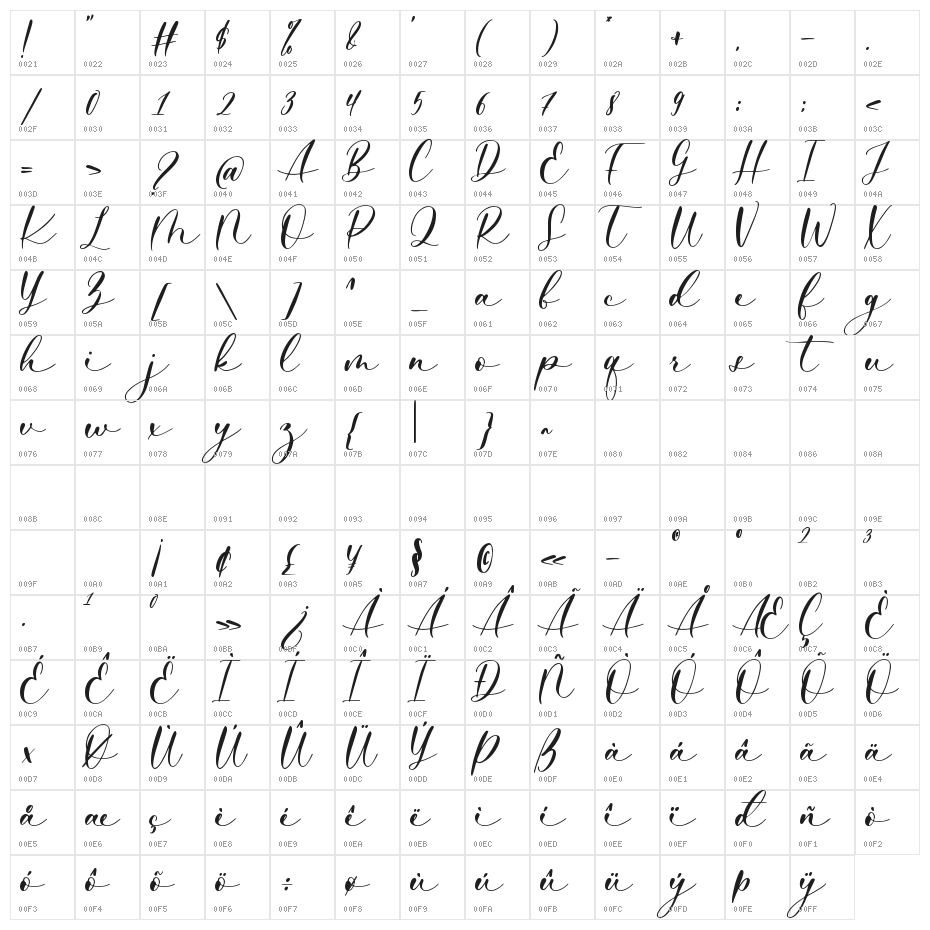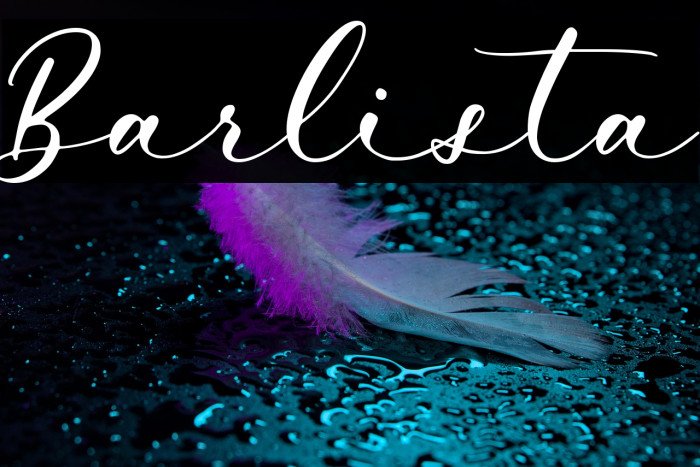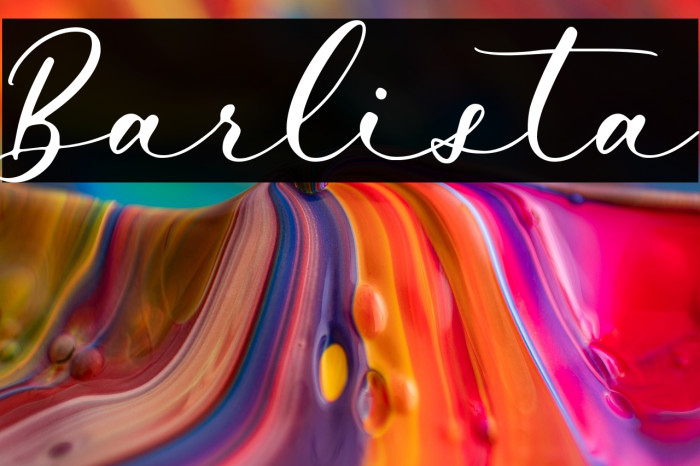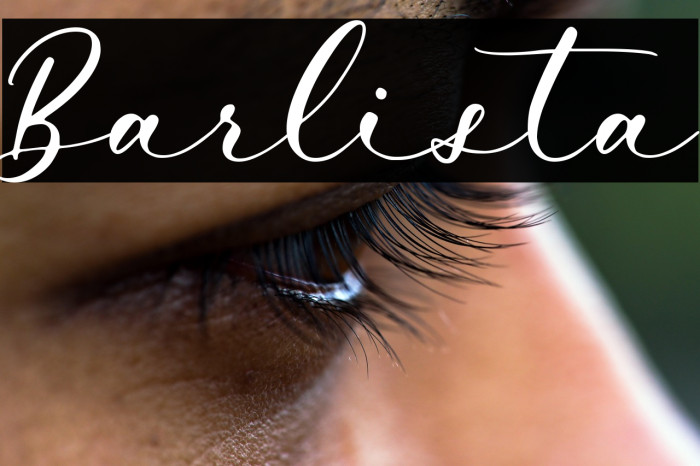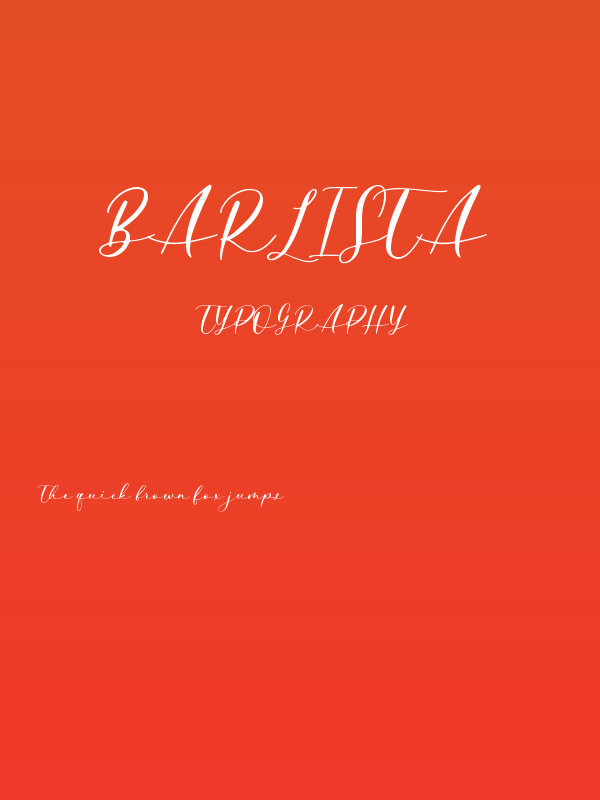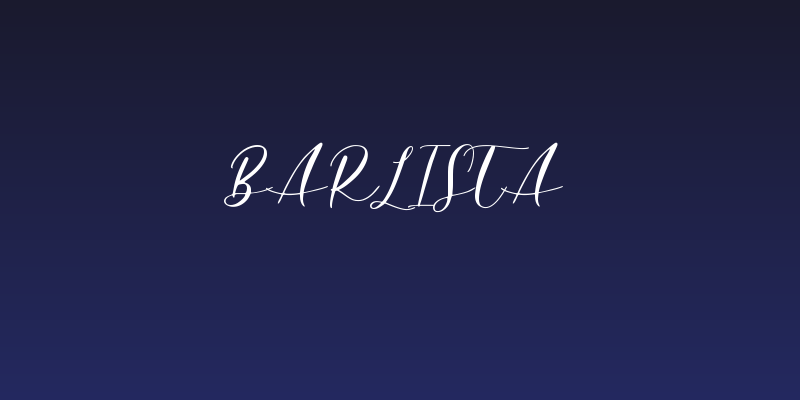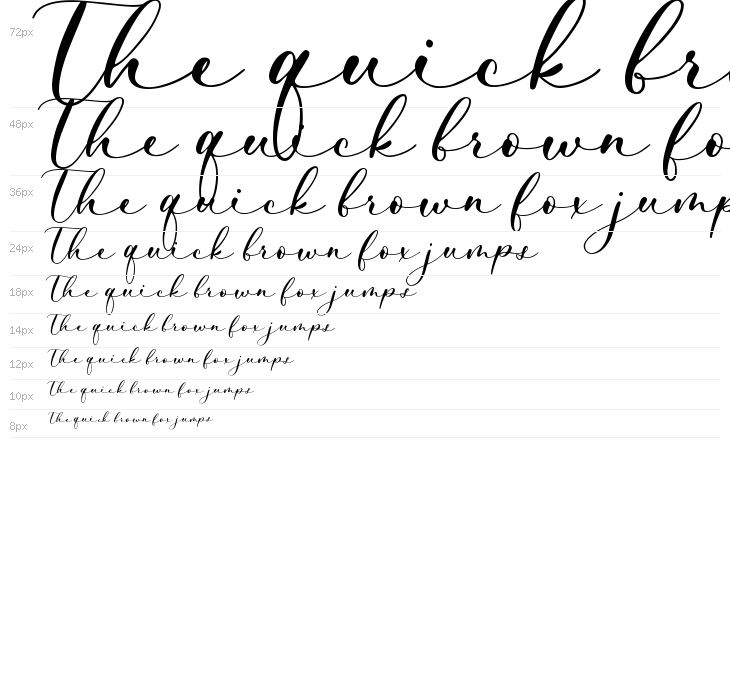
Barlista Font
Barlista Description
This font exudes elegance and sophistication with its flowing, cursive script style. The characters are designed with smooth, sweeping curves and delicate strokes, creating a sense of fluidity and grace. The uppercase letters are particularly ornate, featuring intricate loops and flourishes that add a touch of luxury. The lowercase letters maintain a consistent style, complementing the uppercase with their own subtle embellishments. Numbers and special characters are crafted with the same attention to detail, ensuring a cohesive look across all text. This font is perfect for projects that require a personal, handwritten touch, such as invitations, greeting cards, and branding materials.
| Overall Style | Elegant |
| Use Case | Logos, Invitations, Greeting Cards |
| Proposed Projects | Ideal for wedding invitations, elegant branding, personal stationery, and luxury product packaging. |